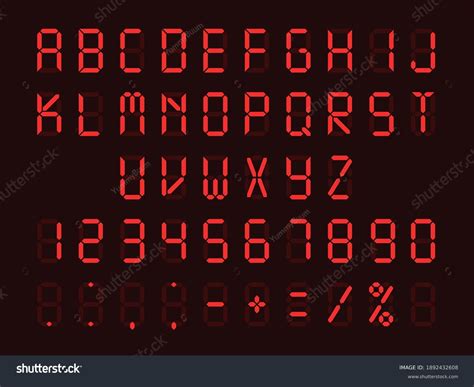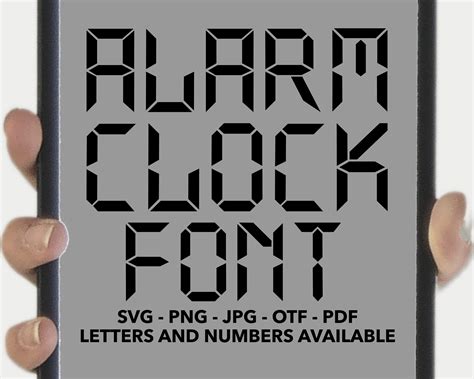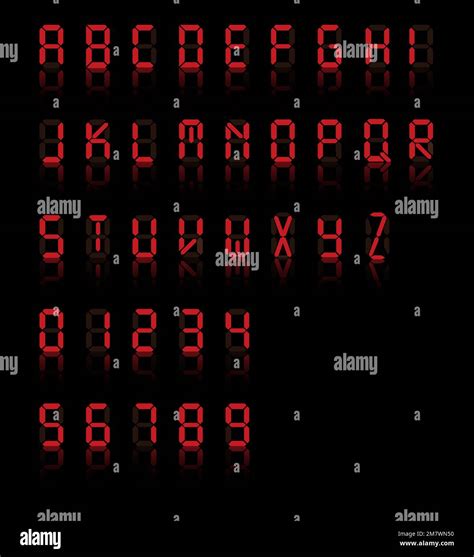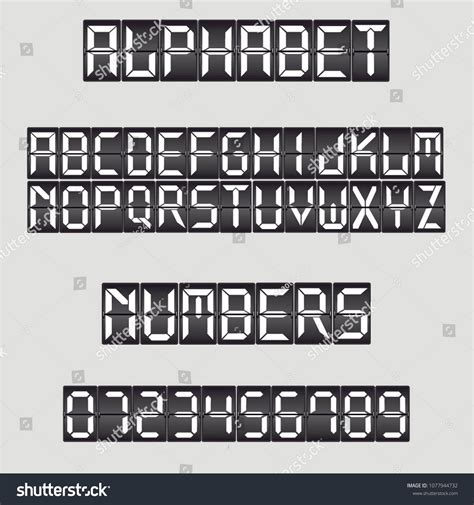
Waking up to the right alarm clock font can make all the difference in your morning routine. The font used on your alarm clock can influence how easily you read the time and how quickly you wake up. This post will delve into the importance of choosing the right alarm clock font, the different types of fonts available, and how to customize your alarm clock to suit your needs.
Understanding the Importance of Alarm Clock Font
The font on your alarm clock is more than just a design element; it plays a crucial role in your daily routine. A well-chosen alarm clock font can:
- Enhance readability, making it easier to see the time at a glance.
- Improve your morning routine by helping you wake up more quickly.
- Add a personal touch to your bedroom decor.
Choosing the right alarm clock font can significantly impact your daily life. For instance, a clear and bold font can help you see the time more easily, especially if you have vision issues or wake up in a dark room. On the other hand, a stylish font can add a decorative element to your alarm clock, making it a more appealing part of your bedroom decor.
Types of Alarm Clock Fonts
There are several types of alarm clock fonts to choose from, each with its own advantages and disadvantages. Here are some of the most common types:
Digital Fonts
Digital fonts are the most common type of alarm clock font. They are characterized by their clean, modern look and high readability. Digital fonts are often used on digital alarm clocks and smart devices. Some popular digital fonts include:
- Helvetica
- Arial
- Verdana
Digital fonts are great for alarm clocks because they are easy to read, even from a distance. They also work well in low-light conditions, making them ideal for nighttime use.
Analog Fonts
Analog fonts are designed to mimic the look of traditional analog clocks. They often feature elegant, curved numbers and a classic design. Analog fonts can add a touch of sophistication to your alarm clock. Some popular analog fonts include:
- Bodoni
- Garamond
- Times New Roman
Analog fonts are a good choice if you prefer a more traditional look for your alarm clock. However, they may not be as easy to read as digital fonts, especially in low-light conditions.
Custom Fonts
Custom fonts allow you to personalize your alarm clock with a unique design. You can choose from a wide range of custom fonts or even create your own. Custom fonts can add a personal touch to your alarm clock and make it stand out. Some popular custom fonts include:
- Pacifico
- Lobster
- Courgette
Custom fonts are a great way to express your personality and make your alarm clock unique. However, they may not be as readable as digital or analog fonts, so it's important to choose a font that is easy to read.
How to Choose the Right Alarm Clock Font
Choosing the right alarm clock font depends on your personal preferences and needs. Here are some factors to consider when selecting an alarm clock font:
Readability
Readability is the most important factor to consider when choosing an alarm clock font. The font should be easy to read, even in low-light conditions. Digital fonts are generally the most readable, but some analog and custom fonts can also be easy to read.
Style
The style of the font should complement your bedroom decor. If you prefer a modern look, a digital font may be the best choice. If you prefer a more traditional look, an analog font may be more suitable. Custom fonts can add a personal touch to your alarm clock and make it stand out.
Size
The size of the font should be large enough to read easily from a distance. A font that is too small can be difficult to read, especially in low-light conditions. A font that is too large can be overwhelming and take up too much space on the alarm clock display.
Color
The color of the font should contrast well with the background of the alarm clock display. A font that is too similar in color to the background can be difficult to read. A font that contrasts well with the background can be easier to read and more visually appealing.
Customizing Your Alarm Clock Font
Many modern alarm clocks allow you to customize the font to suit your needs. Here are some steps to customize your alarm clock font:
Check Your Alarm Clock Manual
Before customizing your alarm clock font, check the manual to see if your alarm clock supports font customization. Some alarm clocks may not allow you to change the font, while others may have limited options.